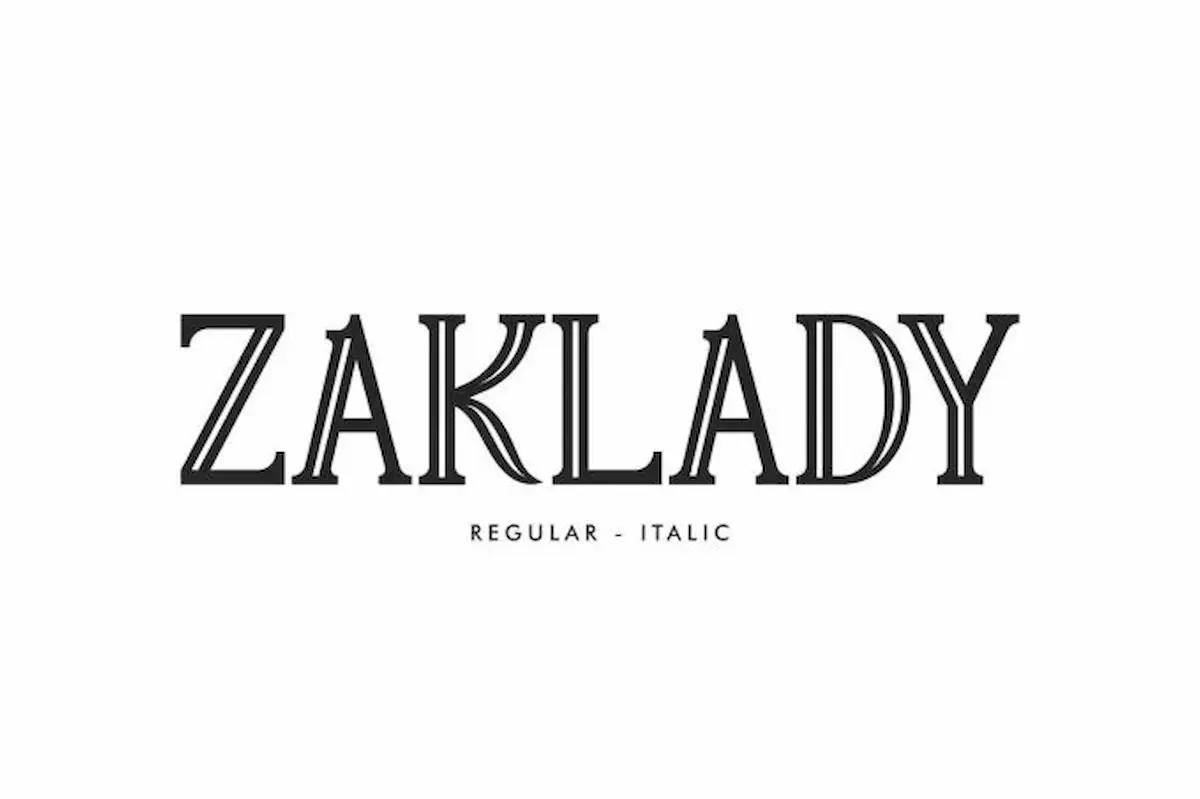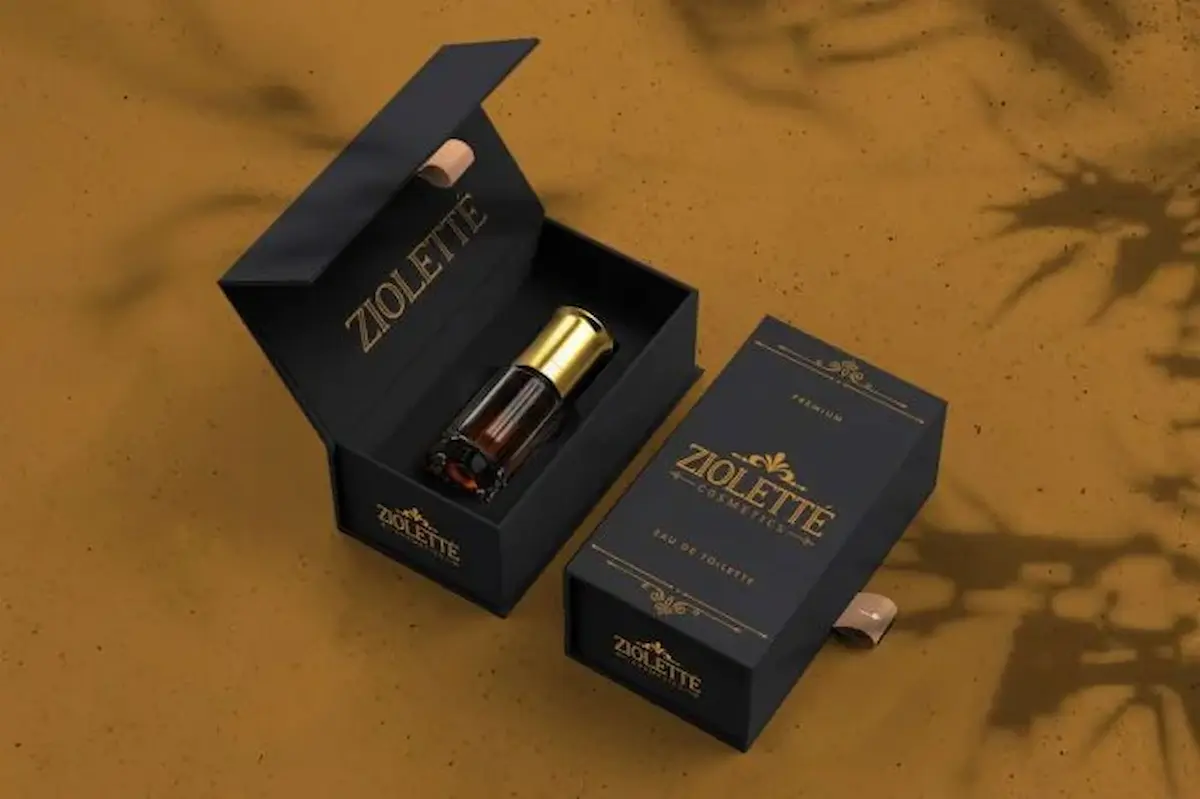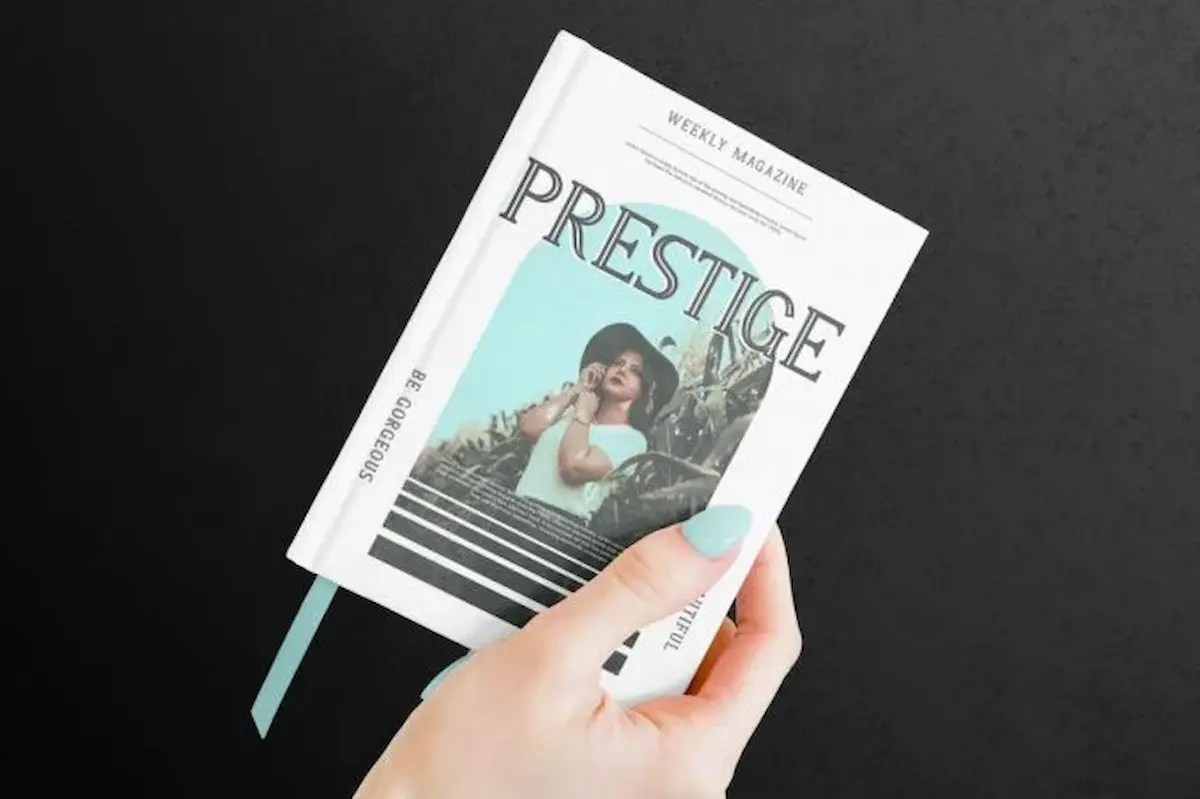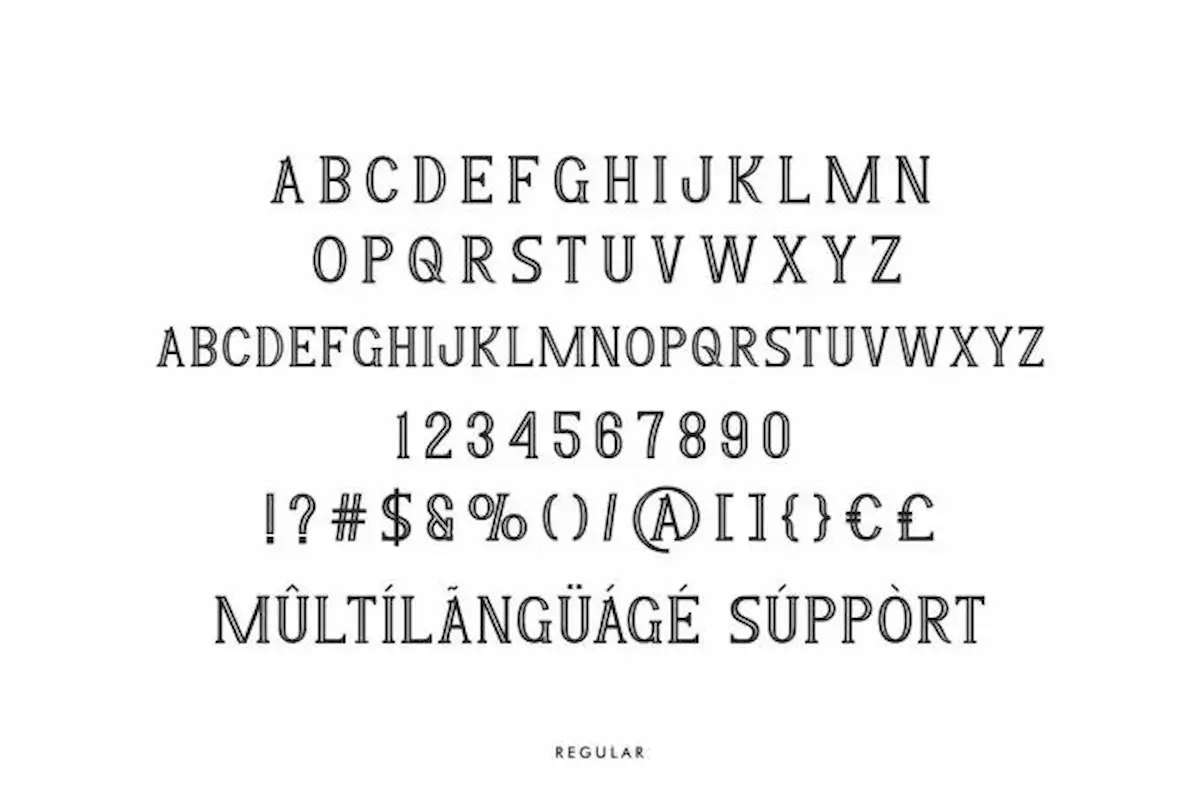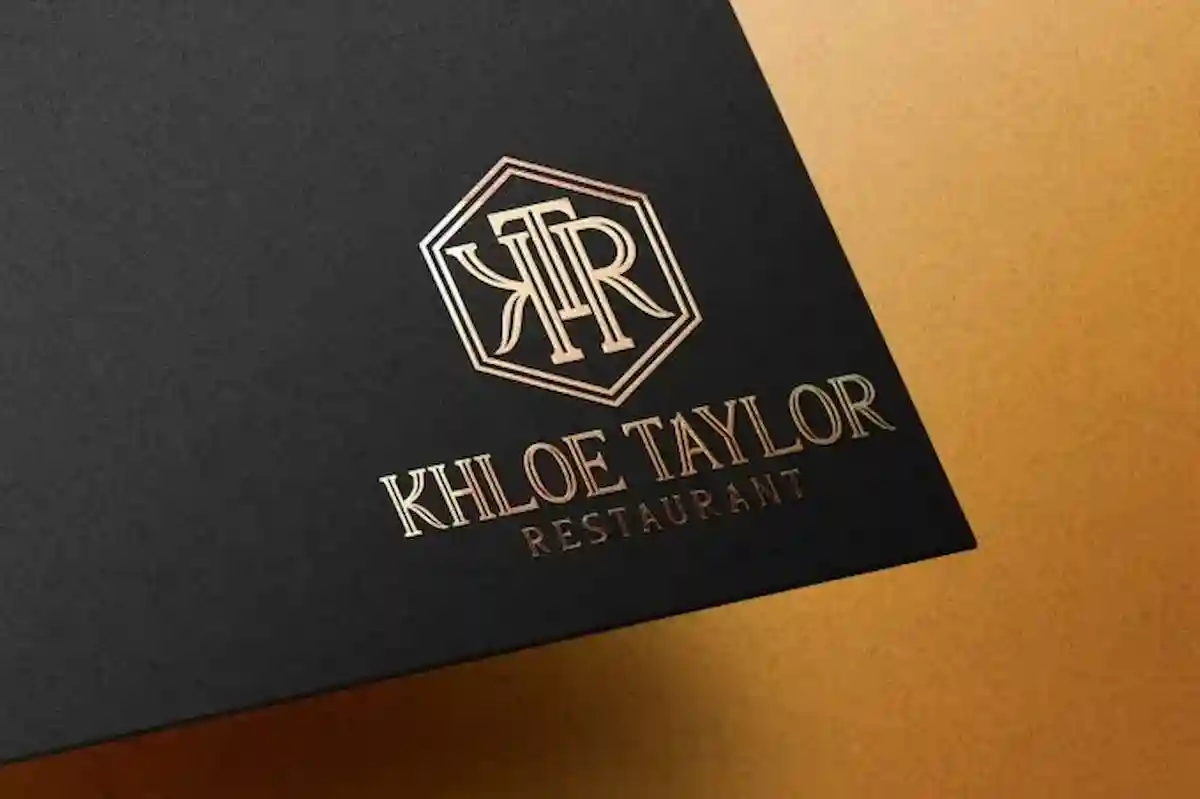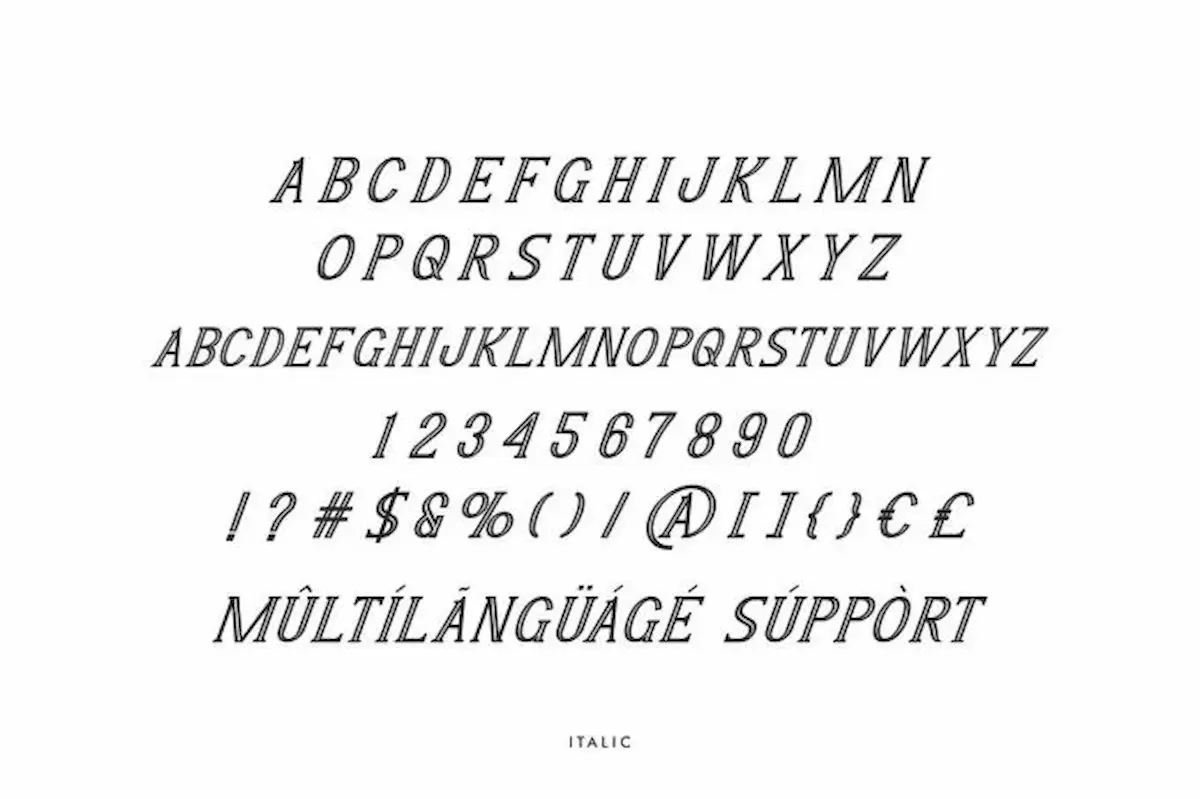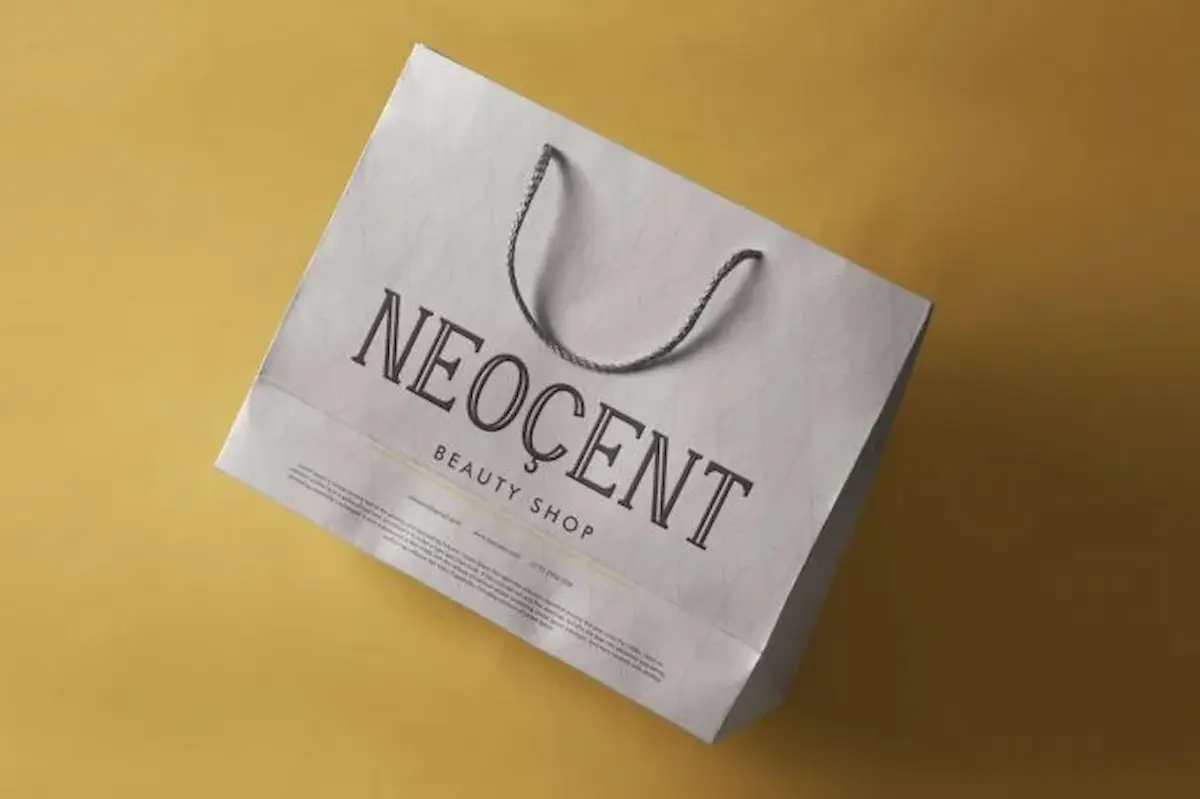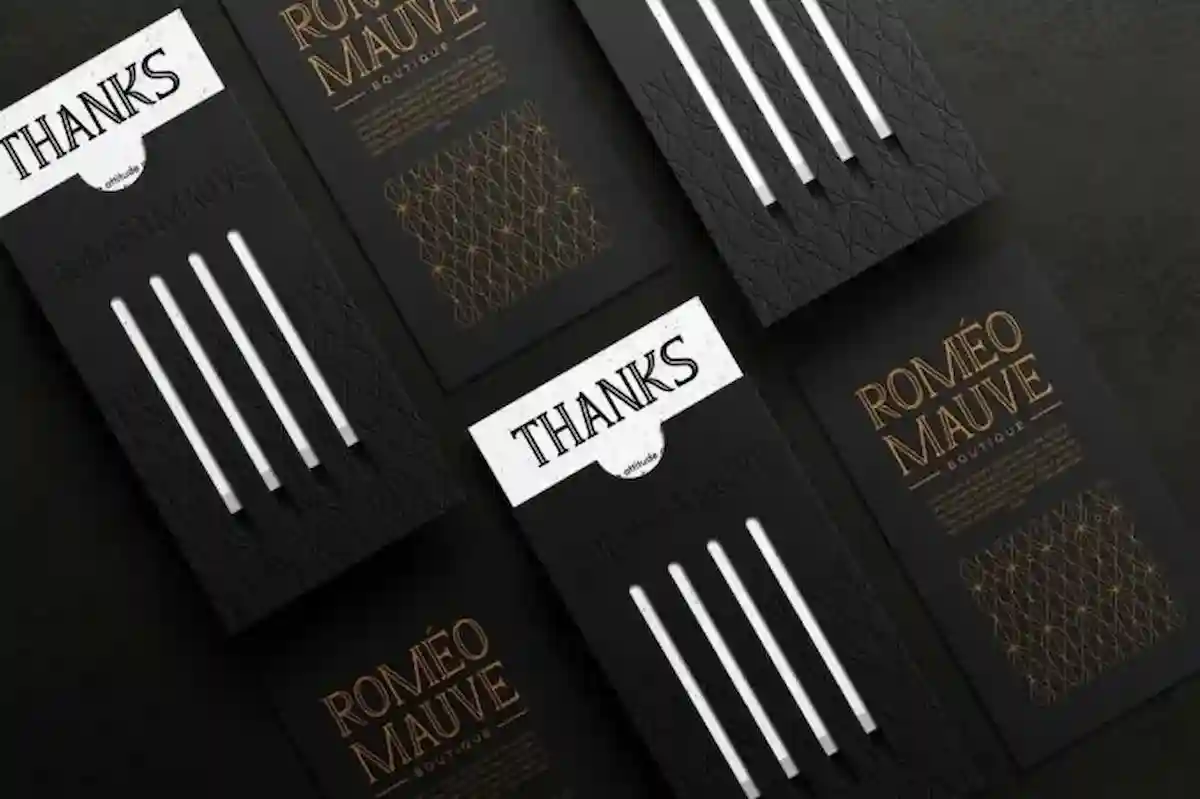
Zaklady Font is a display font by NihStudio, made in 2021. This font can be used for headlines, product packaging, signage and more
Zaklady Font is a display serif font family with two different styles : Reguler and Italic. Have a stylish outline effect. Originally made by NihStudio. On the package you will get :
Handcrafted here in our Studio, Indonesia. Zaklady Font will be great for any projects (require extended license) including : clothing, logo branding, lettering, product packaging, signs, stationery, title etc.